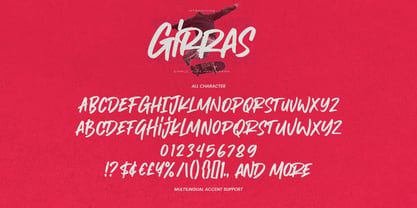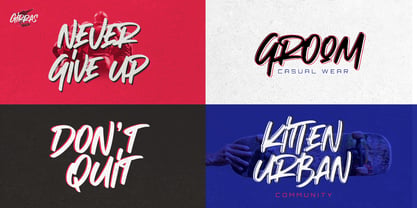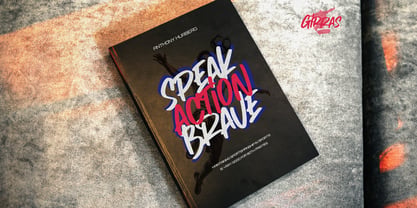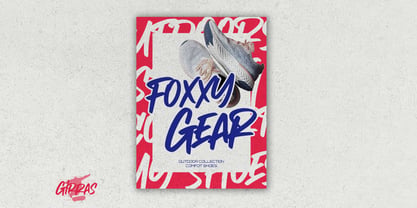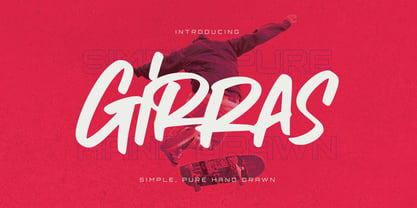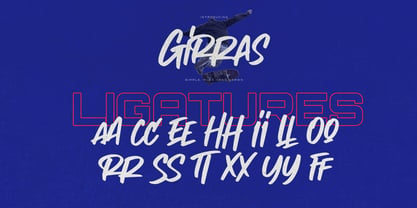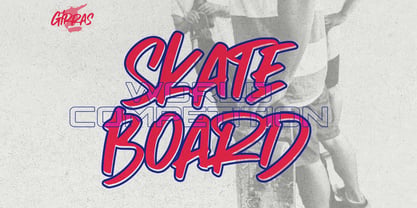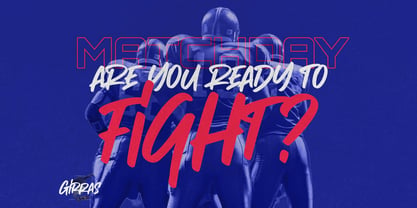
Girras
by Gassstype
The Girras Font Family was designed by Abdul Malik Wisnu and published by Gassstype. Girras contains 1 styles. More about this family
Introducing our new product, Font Girras Simple Pure Hand Drawn. This font features a Textured Natural Style that is both classy and clear, embodying a unique hand-drawn aesthetic. Font Girras is perfect for your next creative project, including logos, printed quotes, invitations, cards, product packaging, headers, logotypes, letterheads, posters, and more. It is ideal for adding a watermark to photography and is perfect for logos and branding, invitations, advertisements, product designs, stationery, wedding designs, labels, product packaging, special events, or anything that requires a handwritten touch. With its charming, authentic, and relaxed characteristics, this font brings a more natural look to your text.
Designers: Abdul Malik Wisnu
Foundry: Gassstype